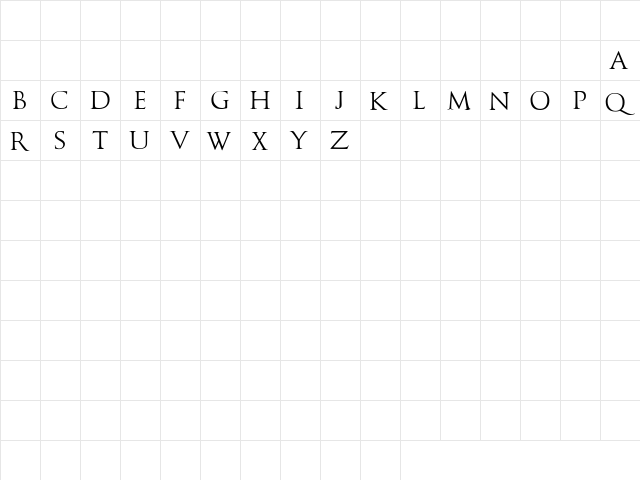
Caesario Demo Regular
Design Context for Caesario Demo Typeface
Caesario Demo offers clean, dependable letterforms without strong stylistic allegiance, making it a practical choice for designers who need flexibility.
Pro Tip: Use Caesario Demo in both headline and body roles to test its range before committing to a single application.